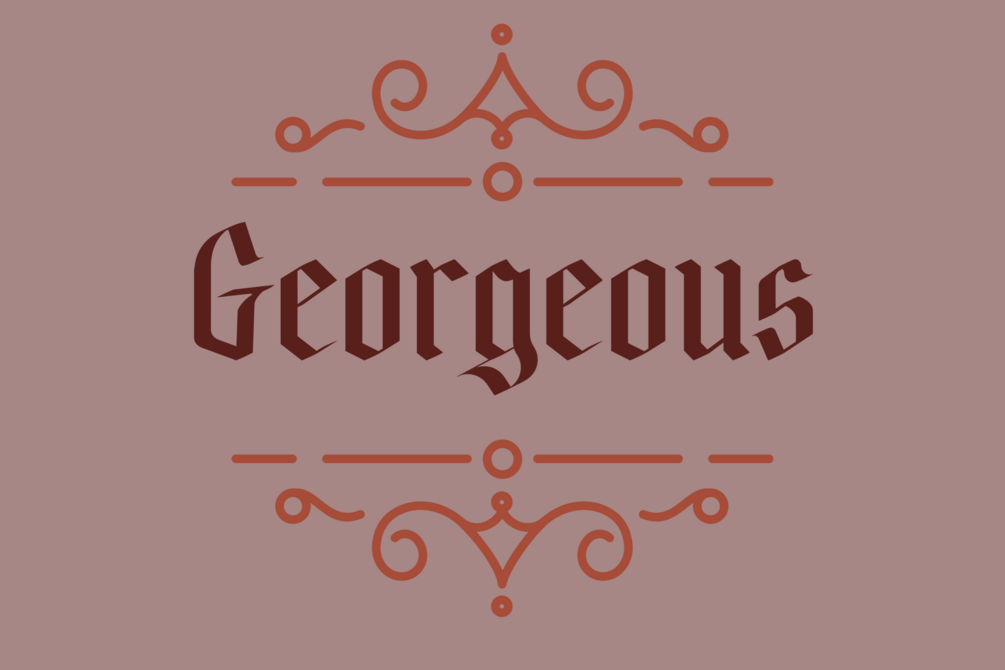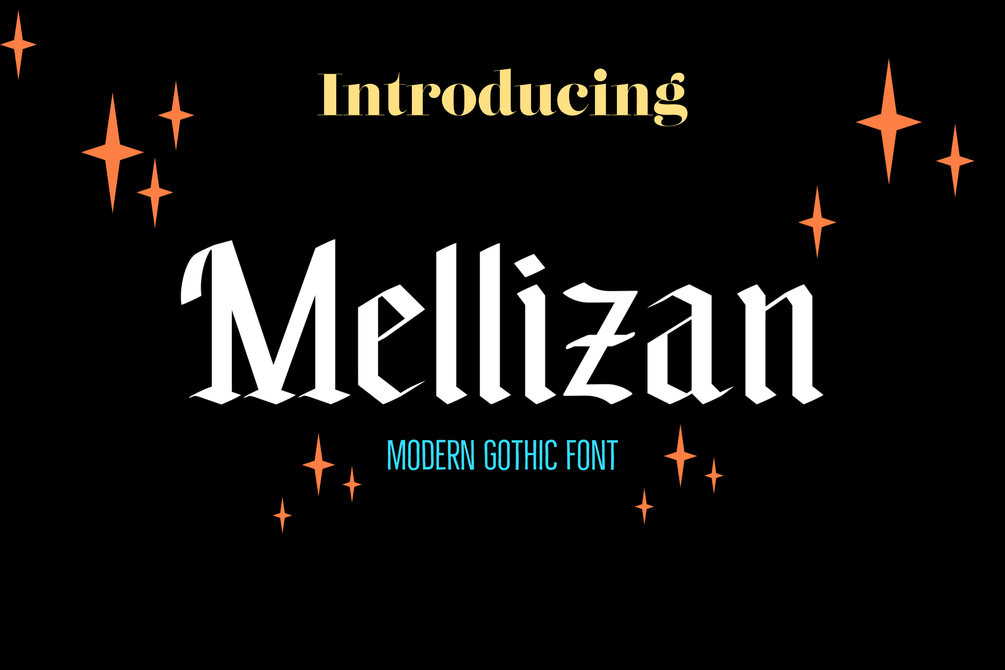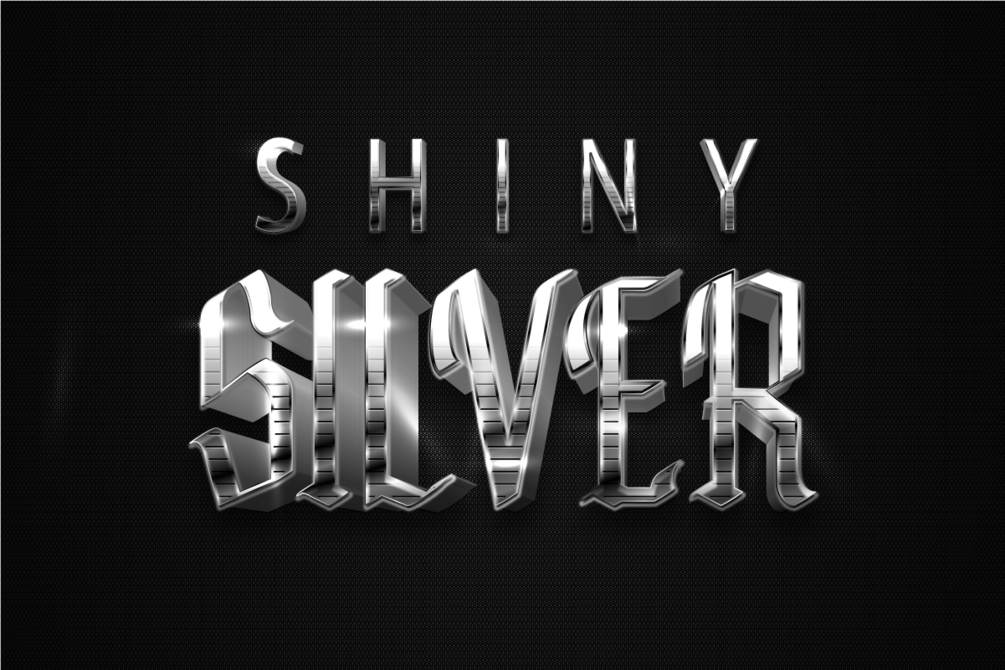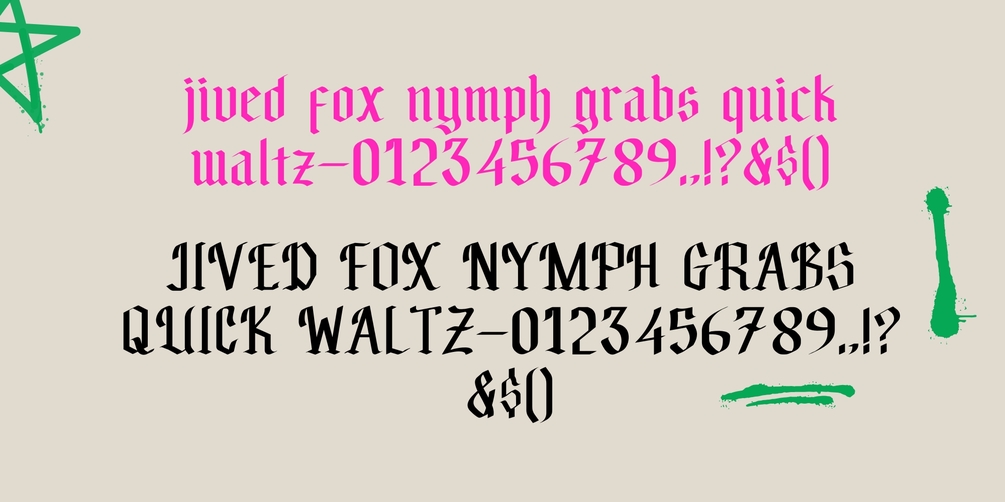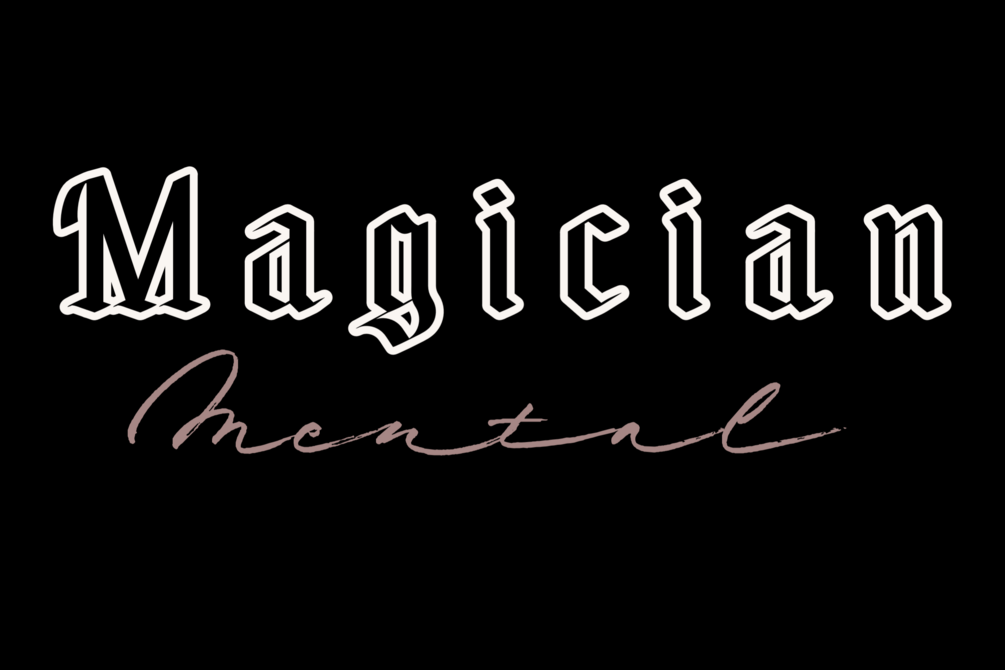
MELLIZAN
Introducing Mellizan – Elevate Your Design Projects with Style
Mellizan is a meticulously crafted typeface designed to enhance the visual appeal of your creative projects. Whether you’re a graphic designer, web developer, or content creator, this versatile font is perfect for adding a touch of elegance and professionalism to your work.
Features:
• Stylish and Modern: Mellizan combines contemporary aesthetics with timeless appeal, making it suitable for a variety of applications.
• Versatile Usage: Ideal for logos, branding, headlines, social media graphics, and more.
• High-Quality Design: Each character is carefully designed to ensure clarity and readability at any size.
• Extended Character Set: Includes uppercase, lowercase, numerals, punctuation, and special characters to meet all your design needs.
Why Choose Mellizan?
• Professional Quality: Designed by experienced typographers to meet industry standards.
Perfect For:
• Branding Projects: Create memorable and impactful logos and brand materials.
• Print and Digital Media: Use in magazines, flyers, posters, websites, and more.
• Social Media: Enhance your posts, stories, and ads with a unique and stylish font.